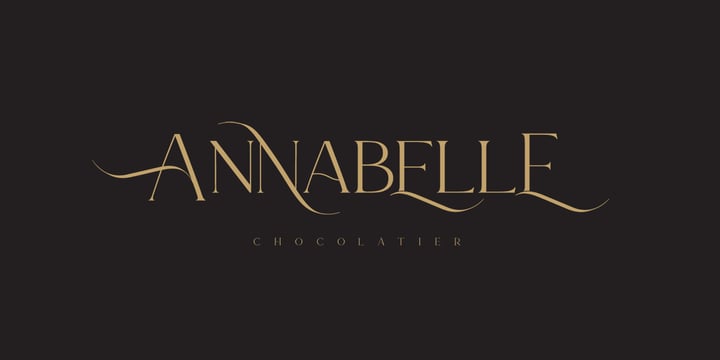
Le Major
by Calamar
The Le Major Font Family was designed by Oksana Petrenko and published by Calamar. Le Major contains 1 styles.
Le Major is my new elegant serif font that will bring in your projects a touch of luxury and style. It's perfect match for logotypes, branding, wedding monograms and invitations, blog headlines and much more. Flip through all the previews and get inspired like I was while creating this font.
About Calamar
Calamar Studio, founded by Oksana Petrenko, specializes in modern calligraphy and handwritten fonts, with a focus on elegant typefaces for weddings, events, and creative projects. “Calamar” is an old Ukrainian word for inkwell, reflecting our passion for lettering and artisanal design. Inspired by classic calligraphy and contemporary handwriting, our fonts combine beauty, readability, and timeless elegance. Our mission is to craft high-quality, versatile fonts that bring charm and personality to every project.